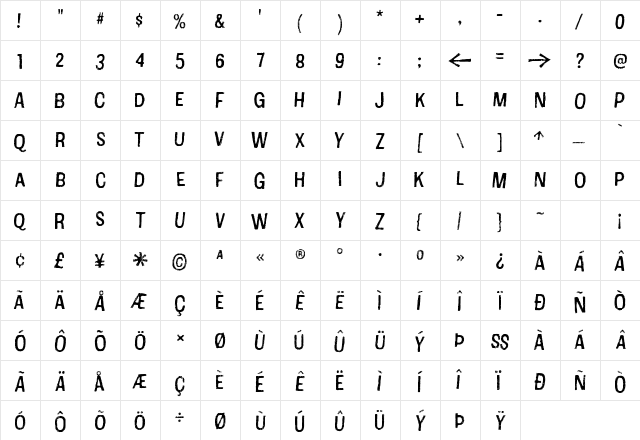
Cotton Regular
Design Context for Cotton Typeface
Cotton offers clean, dependable letterforms without strong stylistic allegiance, making it a practical choice for designers who need flexibility.